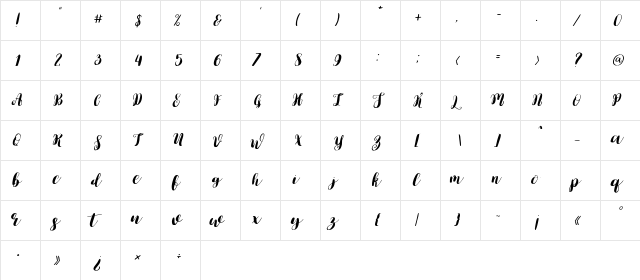
Lauren Regular
| Foundry | DmitriyChirkov |
| Designer | DmitriyChirkov |
Design Context for Lauren Typeface
Lauren takes a measured approach to typography — its balanced proportions and neutral character make it a reliable workhorse for both digital and print work.